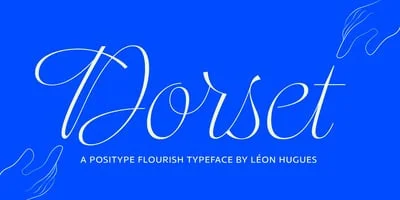
Dorset Font
Dorset Font is ideal for English countryside tourism, traditional pub signage, heritage brand packaging, British literary publications, countryside bed & breakfast materials, artisanal farm products, historic estate branding, and charming village festival posters.
This font is exciting because it embodies the timeless charm and pastoral elegance of the English countryside with gentle, welcoming letterforms that evoke rolling hills, cozy cottages, and centuries-old traditions. The Dorset Font captures the essence of rural British heritage, transforming ordinary text into warm invitations to experience authentic countryside hospitality and traditional English charm.
The Dorset Font family features countryside-inspired variations including Regular, Bold, Light, Italic, Rustic, Condensed, Extended, and Heritage versions, providing traditional brand designers with comprehensive tools to create authentic British typography that celebrates rural heritage and countryside values.
Experience countryside charm with Dorset Font that brings authentic English elegance to every design project. This heritage-rich typeface combines traditional British aesthetics with contemporary functionality, making it perfect for tourism operators, artisanal brands, and organizations celebrating rural heritage and countryside living. The font's welcoming character design ensures your message feels warm and authentic while maintaining excellent readability across all applications. Whether you're developing countryside tourism branding, creating heritage product packaging, or designing materials that celebrate traditional British culture, Dorset Font delivers the charming typography that connects with audiences seeking genuine countryside experiences. Its versatile design works beautifully across digital and print media while preserving the pastoral warmth that makes British countryside communications feel like personal invitations to discover England's most treasured rural traditions and hospitality.